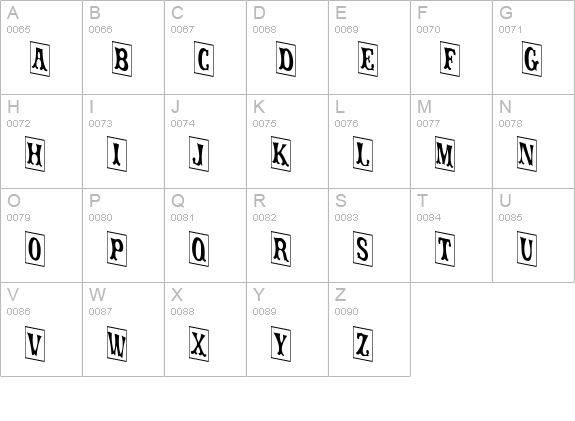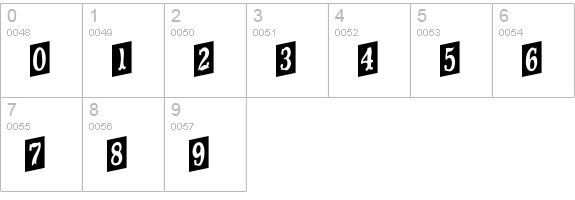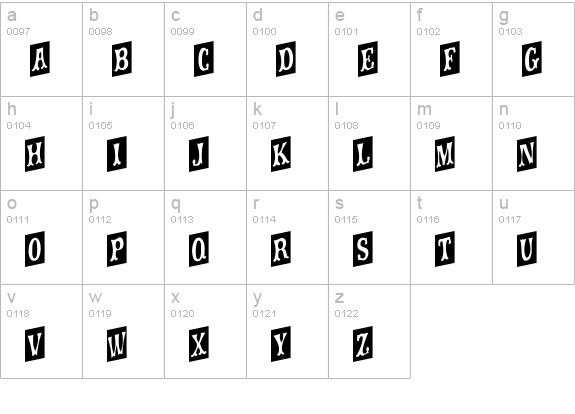
movieola Font Details
Movieola Font is a stunning and versatile typeface that brings a touch of classic elegance to any design project. With its sleek lines and timeless appeal, Movieola Font is perfect for creating eye-catching titles, headlines, and logos that stand out from the crowd. What makes Movieola Font even more appealing is that it is available for free download at FontsMarket.com. This means you can easily add this beautiful font to your collection without any cost, making it a valuable asset for any designer or creative professional. Whether you're working on a poster, website, or branding project, Movieola Font offers a wide range of possibilities to elevate your designs and bring them to life. Don't miss out on the opportunity to enhance your projects with this elegant and sophisticated font - download Movieola Font for free today at FontsMarket.com!